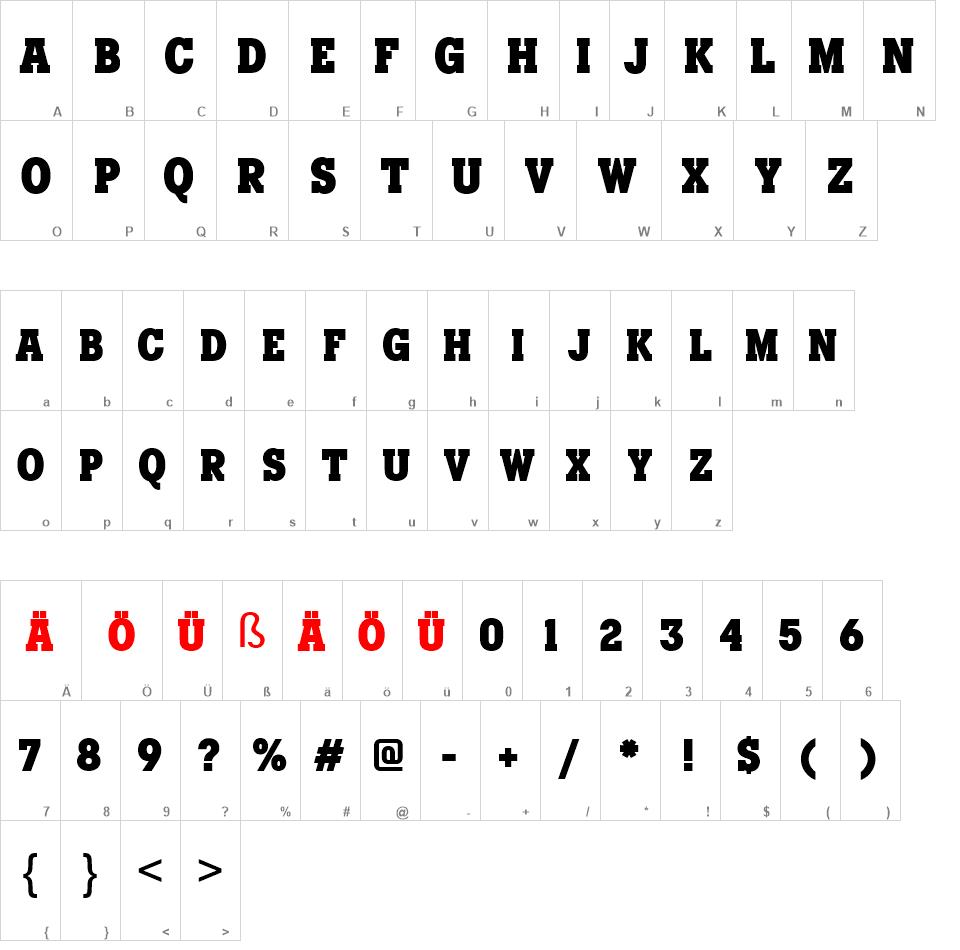
Manhandle Slab
Manhandle Slab is a a very bold serif typeface. Suitable for old school designs, sports teams, school projects and tech companies, or whatever your genious design guts tell you.